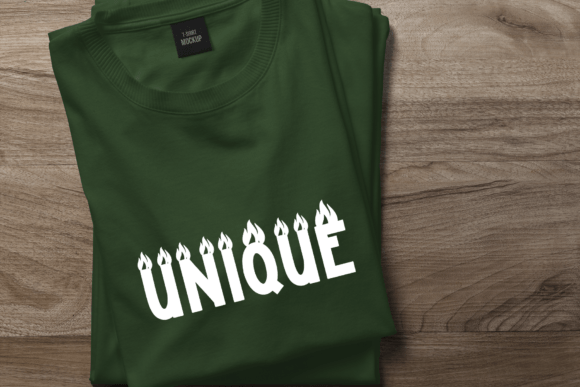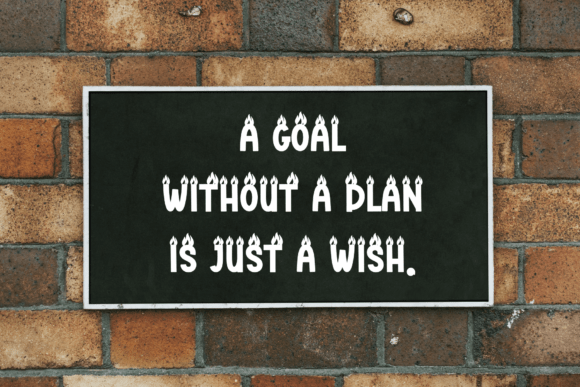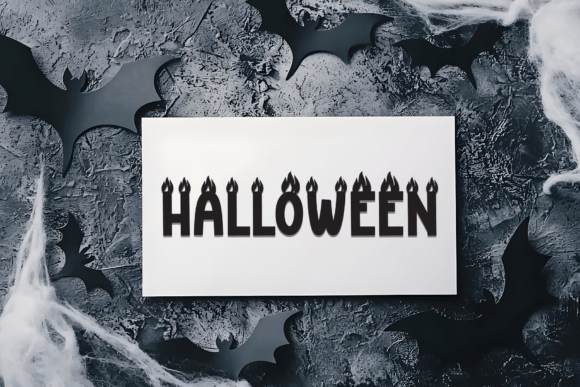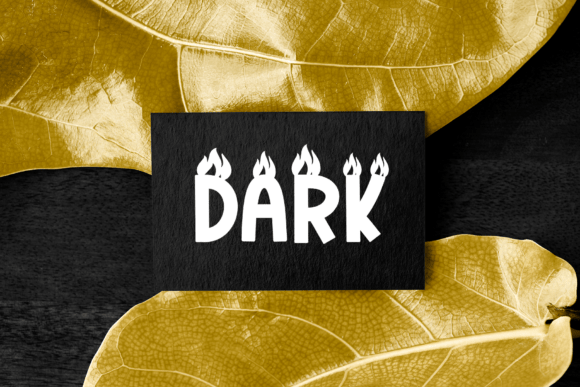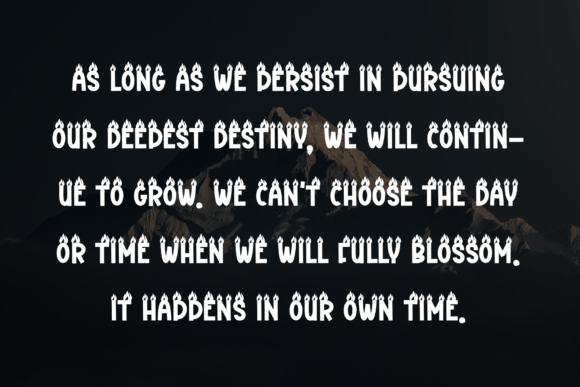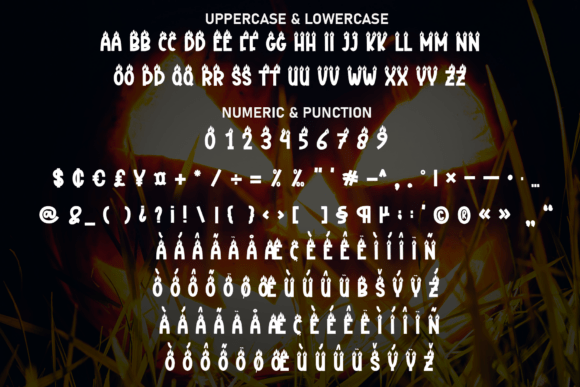
Unleash the Inferno: Discover the Fire Ghost Font
Are you ready to add a spark to your designs? Look no further than the Fire Ghost font, a bold display font that’s sure to set your creative projects ablaze. This fiery font is perfect for designers and crafters looking to inject a dose of personality into their work, whether it’s for Halloween, horror-themed titles, spooky games, or simply to add a touch of mystery to any design.
The Blazing Characteristics of Fire Ghost
What sets Fire Ghost apart is its unique design element: each character is topped with a flame, giving it a distinctive and eye-catching appearance. This feature not only makes it perfect for projects that require a bit of heat and drama but also ensures that your designs stand out from the crowd. The flames add a playful and whimsical touch, making the font versatile for various creative applications.
Perfect for Spooky and Scary Projects
Halloween and horror-themed projects can greatly benefit from the Fire Ghost font. Imagine crafting scary movie graphics, haunted house flyers, or spooky game titles with a font that literally burns with personality. The dramatic flair Fire Ghost adds is unforgettable, making it an excellent choice for any project that aims to thrill or spook its audience.
Clean, Blocky, and Readable
While the flames on each character make Fire Ghost fun and attention-grabbing, the clean, blocky shape of the font ensures it’s also highly readable. This balance of style and functionality is crucial for designers who need to create visually appealing work that’s also clear and easy to read. Whether you’re designing posters, flyers, or digital content, Fire Ghost strikes the perfect balance.
Applications of Fire Ghost
The versatility of Fire Ghost makes it suitable for a wide range of applications. Here are a few ideas to get you started:
- Halloween and Horror Themes: Use Fire Ghost for titles, headings, or any text element that needs to capture the essence of the spooky season or horror genre.
- Spoky Games: Add a thrilling touch to your game titles, menus, or in-game text with the fiery personality of Fire Ghost.
- Posters and Flyers: Whether it’s for a haunted house, a horror movie night, or any event that needs a spooky vibe, Fire Ghost is the perfect choice.
- Graphic Novels and Comics: Bring drama and intensity to your comic book titles, chapter headings, or dialogue with the bold, flaming text.
Tips for Using Fire Ghost Effectively
To make the most of Fire Ghost, consider the following tips:
- Contrast is Key: Use Fire Ghost against a dark or muted background to make the flames pop and the text stand out.
- Mix and Match: Combine Fire Ghost with simpler fonts for body text to create visual hierarchy and interest.
- Play with Colors: While the fiery theme of Fire Ghost suggests using reds and oranges, don’t be afraid to experiment with other colors to match your project’s mood.
Fire Ghost is more than just a font – it’s a statement piece for your designs. Its bold, flaming characters are sure to capture attention and add a unique touch to any project. Whether you’re a designer working on a spooky game, a crafter making Halloween decorations, or simply someone who loves to dabble in graphic design, Fire Ghost offers a world of creative possibilities. So why settle for ordinary when you can ignite your designs with the fiery personality of Fire Ghost?